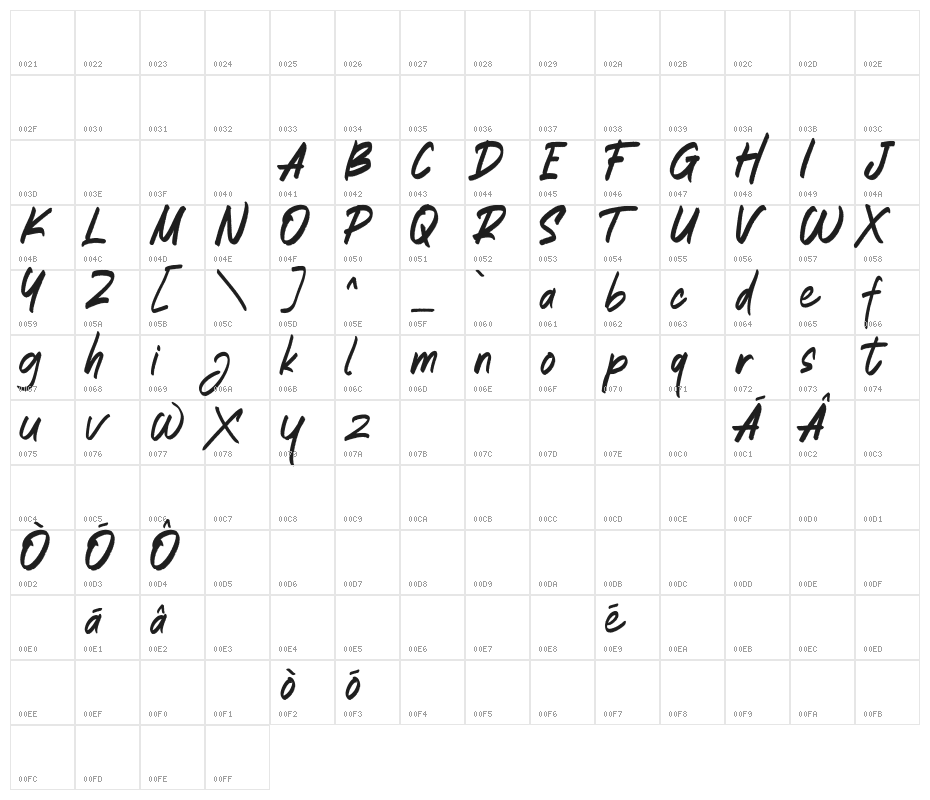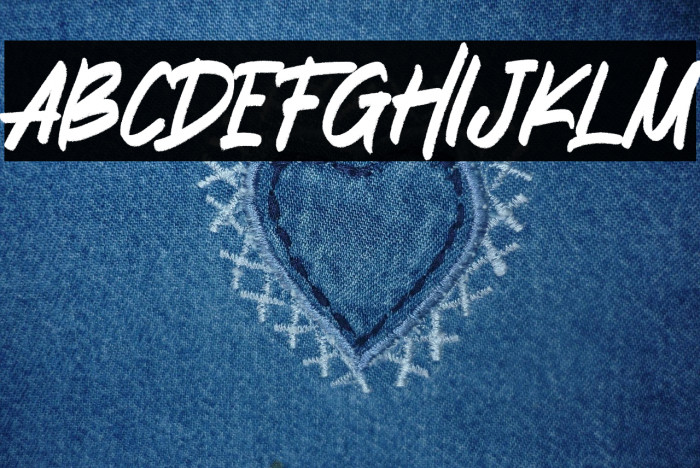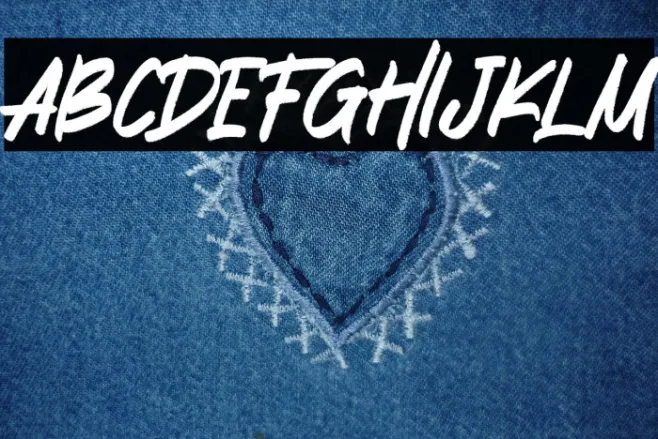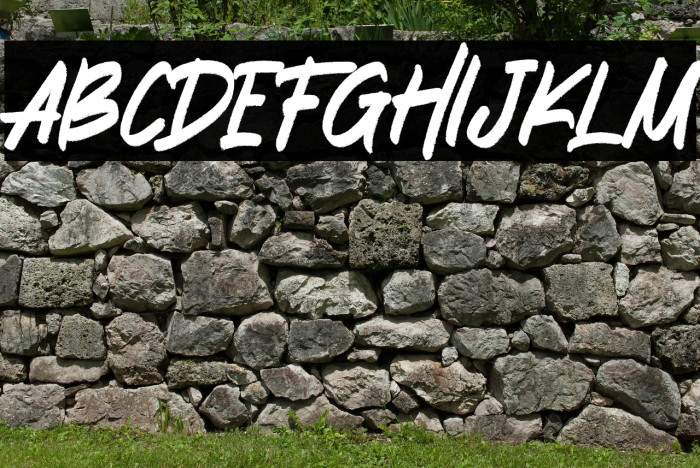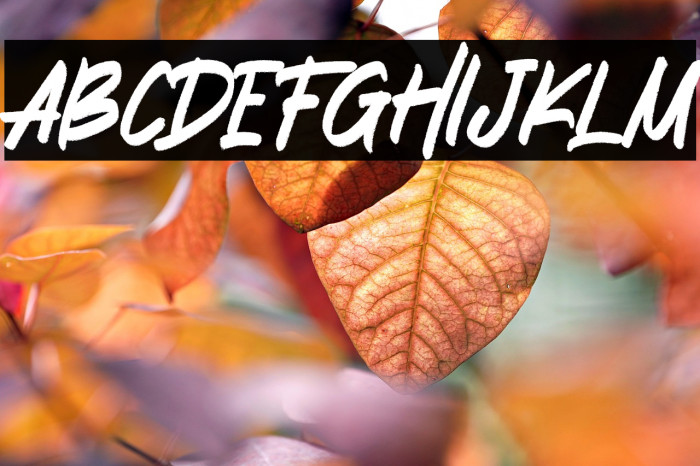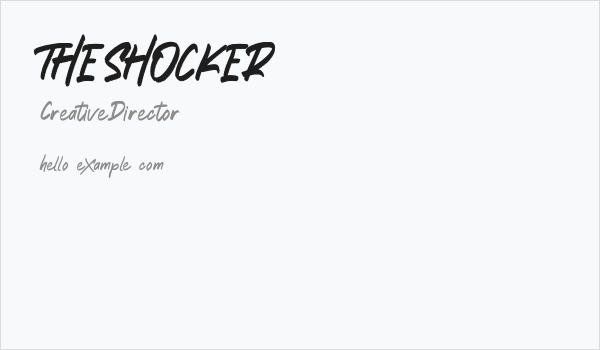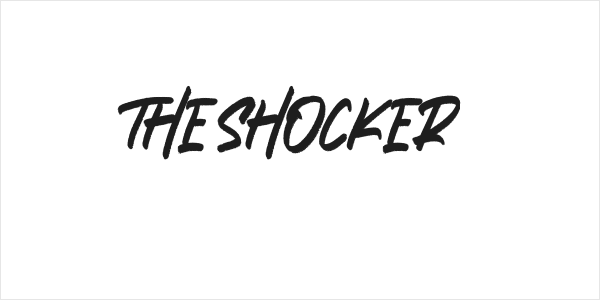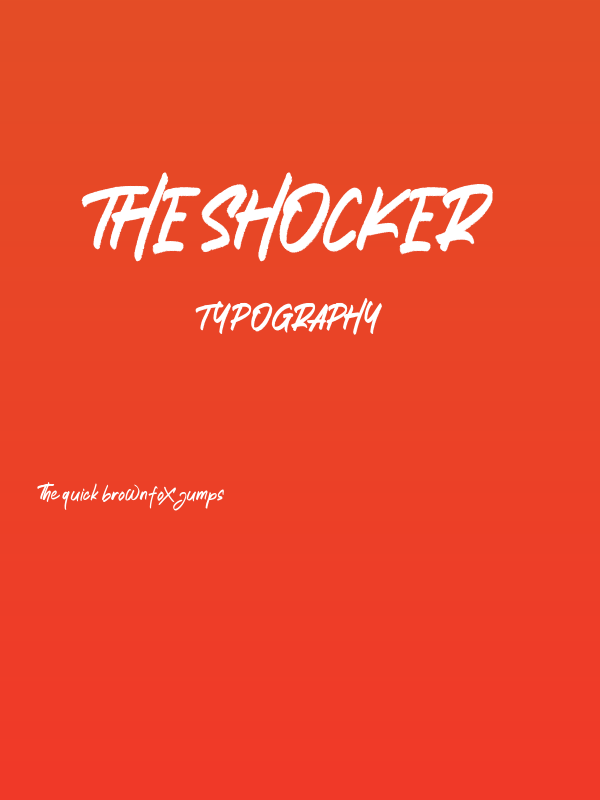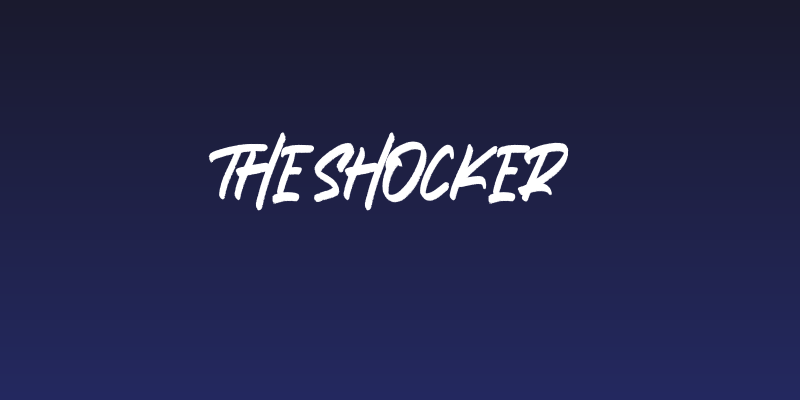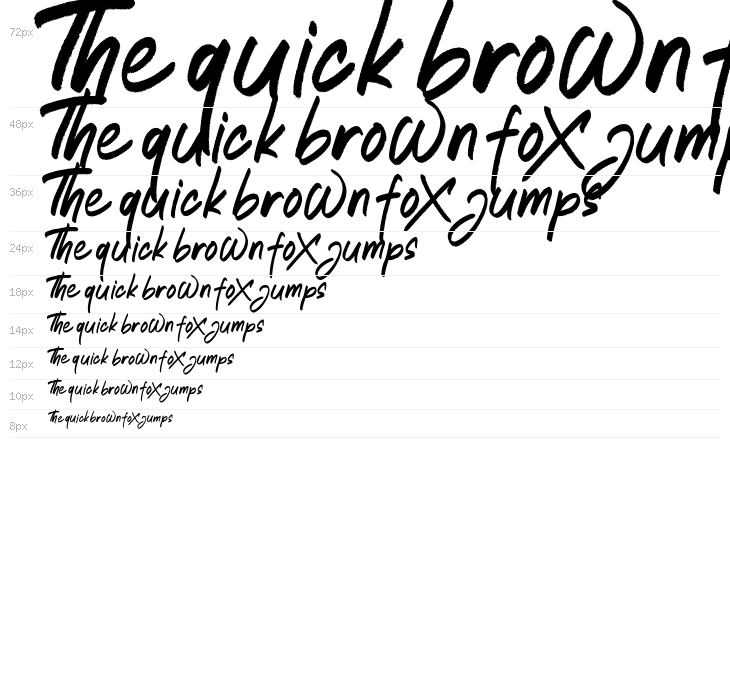
THE SHOCKER Font
THE SHOCKER Description
This font exhibits a dynamic and energetic handwritten style, characterized by its bold and fluid strokes. The letters are slightly slanted, giving a sense of motion and spontaneity. The uppercase and lowercase letters maintain a consistent flow, with some characters featuring unique loops and curves that add to the font's personality. The overall appearance is casual yet impactful, making it suitable for projects that require a personal touch. The spacing between characters is tight, enhancing the cohesive look of the text.
| Overall Style | Casual, Energetic |
| Proposed Projects | Ideal for branding, invitations, greeting cards, and social media graphics where a personal and lively touch is desired. |